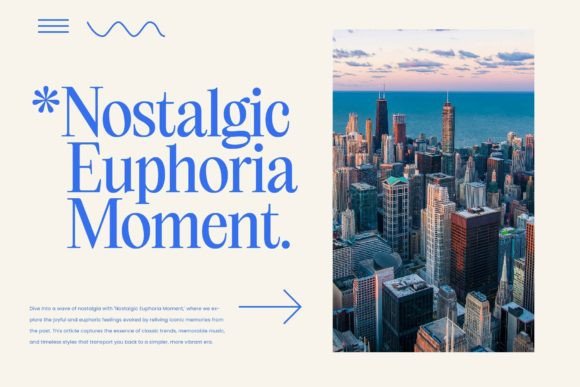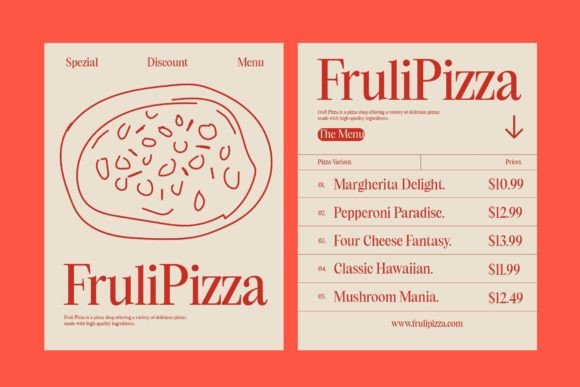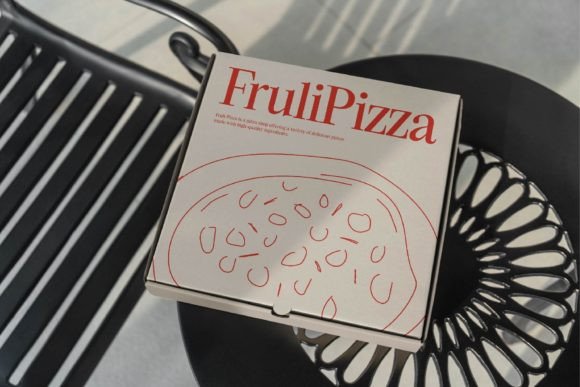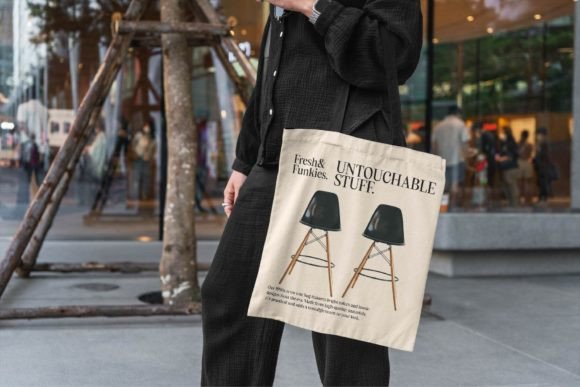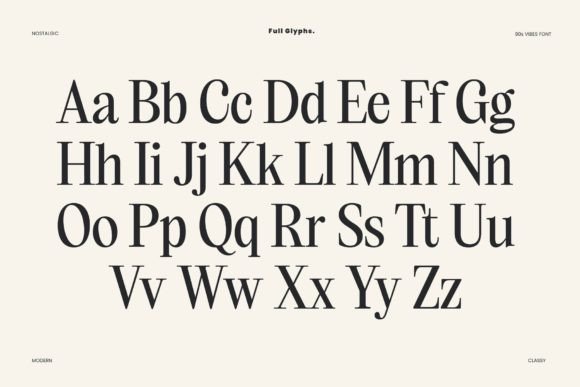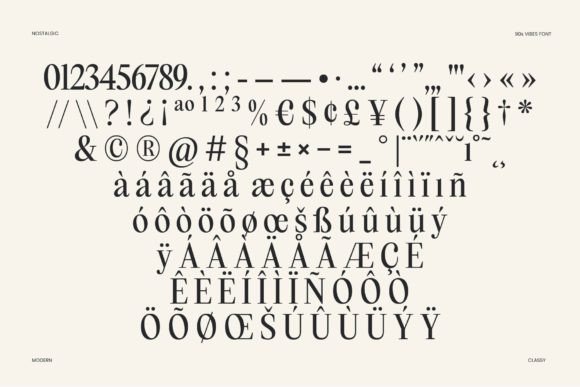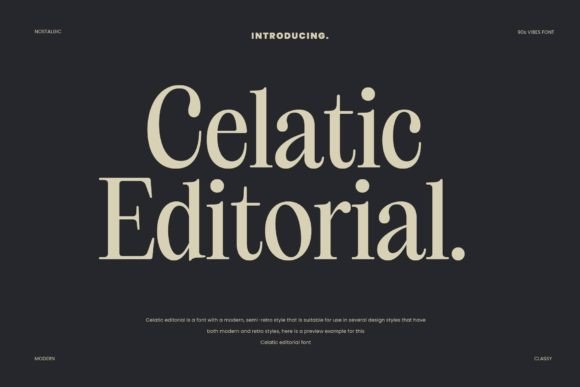
Introducing Celatic Editorial: The Ultimate Font for Sophisticated Designs
Step into a world of sophistication with Celatic Editorial, a classy typeface that perfectly blends 90s vibes with modern elegance. This stunning font is designed to elevate your designs, whether you’re working on book titles, logos, flyers, branding, banners, crafting, or invitations. With its refined style and timeless appeal, Celatic Editorial is a versatile choice for any project, adding a touch of nostalgia and contemporary charm.
A Perfect Blend of Retro and Modern
Celatic Editorial’s unique charm lies in its ability to seamlessly merge 90s nostalgia with modern sophistication. The font’s classic features, reminiscent of the 1990s, are reimagined with a contemporary twist, making it perfect for designers and crafters looking to create stylish and eye-catching designs. Whether you’re aiming for a vintage look or a modern aesthetic, Celatic Editorial adapts effortlessly, ensuring your designs exude a polished and stylish look.
One of the standout features of Celatic Editorial is its incredible versatility. This font is suitable for a wide range of design applications, including:
• Book Titles: Add a touch of elegance to your book covers with Celatic Editorial’s refined and sophisticated style.
• Logos: Create a lasting impression with a custom logo that exudes professionalism and style.
• Flyers: Grab attention with eye-catching flyers that showcase your message in a clear and stylish manner.
• Branding: Develop a consistent brand identity with Celatic Editorial’s timeless and versatile design.
• Banners: Make a statement with banners that feature bold, yet elegant typography.
• Crafting: Add a personal touch to your crafting projects with Celatic Editorial’s charming and sophisticated style.
• Invitations: Create memorable invitations that set the tone for special occasions with Celatic Editorial’s refined and elegant design.
Why Choose Celatic Editorial?
With so many fonts available, why choose Celatic Editorial? Here are just a few reasons why designers and crafters are falling in love with this stunning typeface:
• Unique Style: Celatic Editorial’s blend of 90s vibes and modern elegance sets it apart from other fonts.
• Timeless Appeal: This font’s classic features ensure it will remain stylish for years to come.
• Versatility: Use Celatic Editorial for a wide range of design applications, from print to digital.
• Ease of Use: This font is easy to read and works beautifully in various sizes and colors.
Tips for Using Celatic Editorial
To get the most out of Celatic Editorial, here are a few design tips:
• Experiment with Colors: Try pairing Celatic Editorial with bold, bright colors to create a statement piece.
• Play with Sizes: Use different font sizes to create visual hierarchy and add depth to your designs.
• Add Texture: Incorporate texture and patterns to give your designs an extra layer of interest.
• Mix and Match: Combine Celatic Editorial with other fonts to create a unique and eye-catching design.
In conclusion, Celatic Editorial is a sophisticated and versatile font that’s perfect for designers and crafters looking to elevate their designs. With its unique blend of 90s vibes and modern elegance, this font is sure to add a touch of nostalgia and contemporary charm to any project. Whether you’re working on a book title, logo, flyer, or invitation, Celatic Editorial is the perfect choice for creating polished and stylish designs.